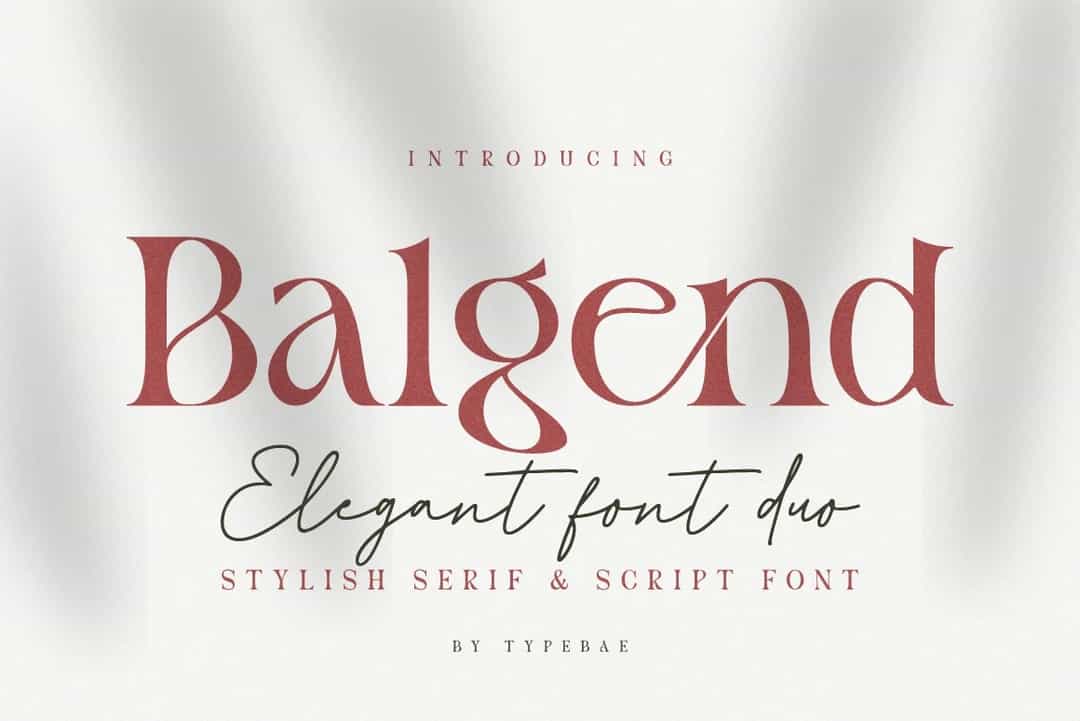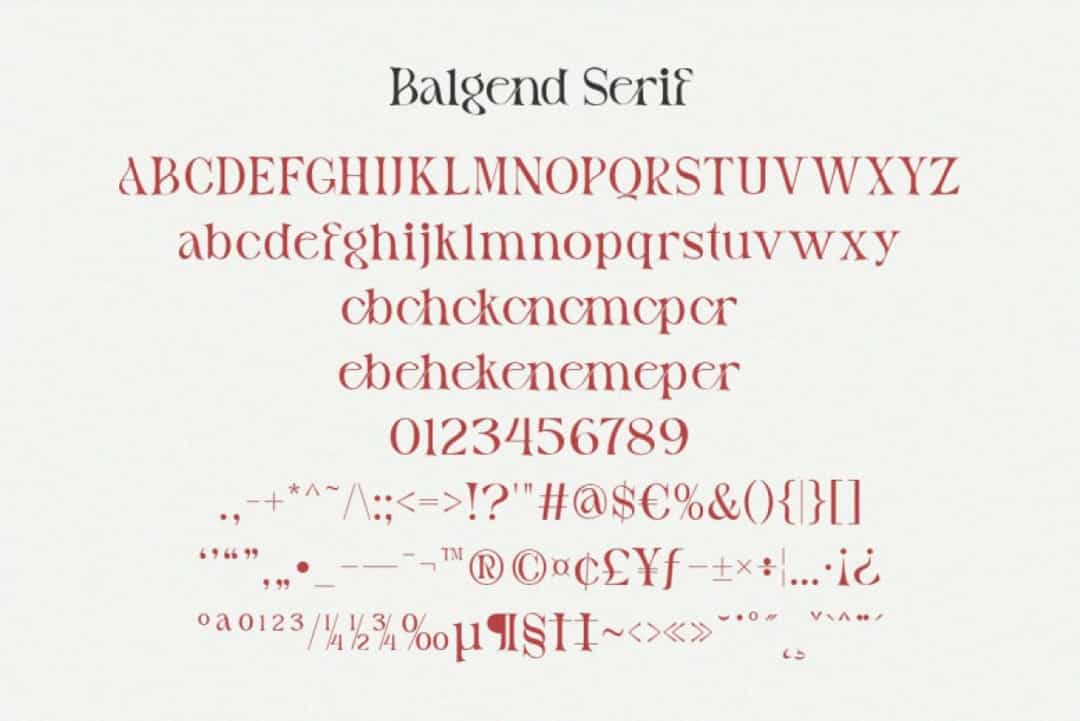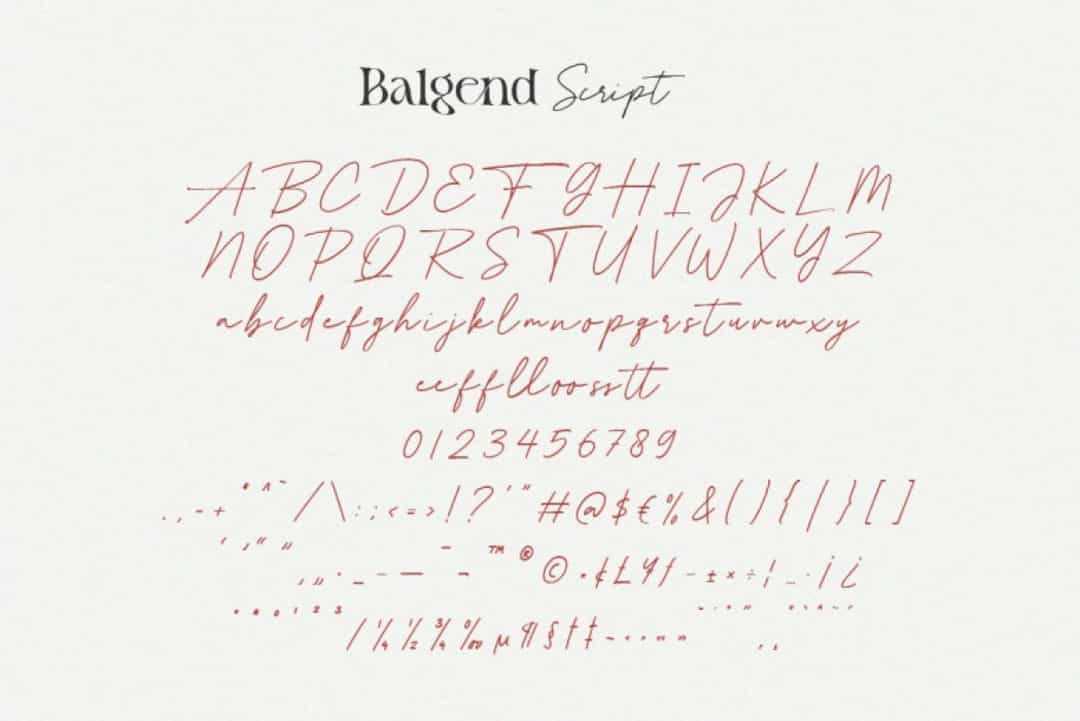
Balgend is an eye-catching modern and contemporary script and serif font pair that effortlessly combines elegance with wit. Boasting both traditional serifs and stunning scripts, Balgend adds classic style to any design project.